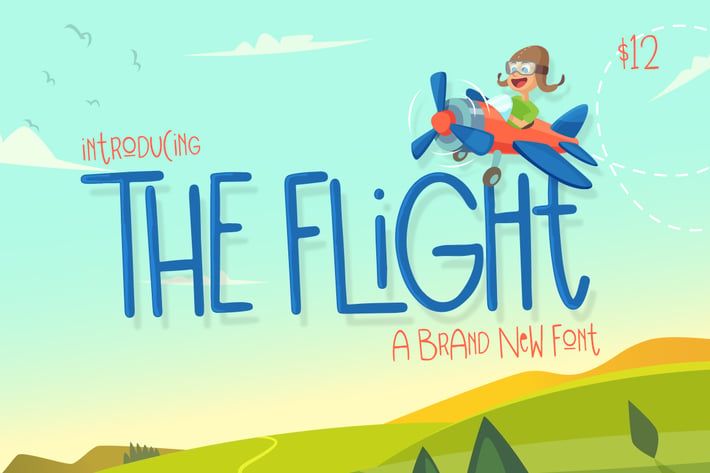
The Flight Font
Introducing The Flight font, a brand new quirky typeface. Combine the uppercase and lowercase characters to create fun and exciting new letter combinations.